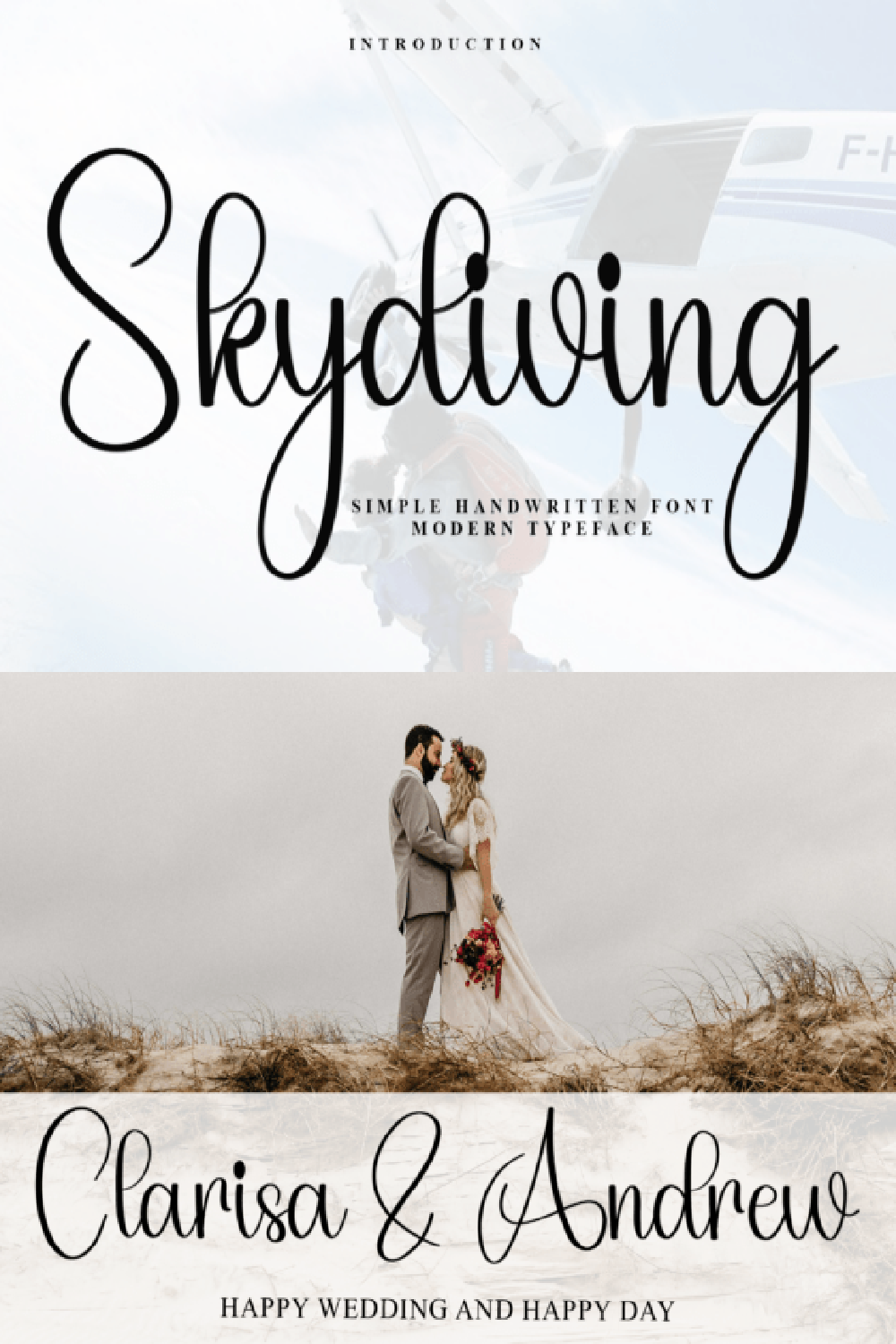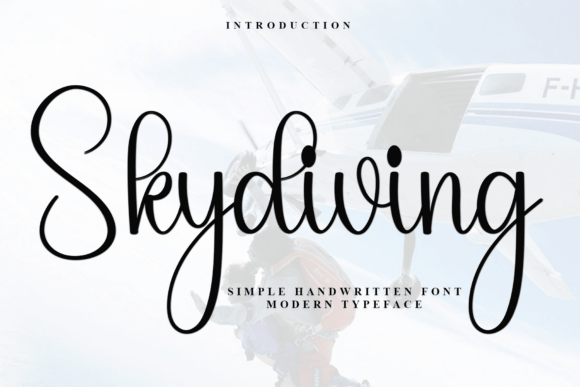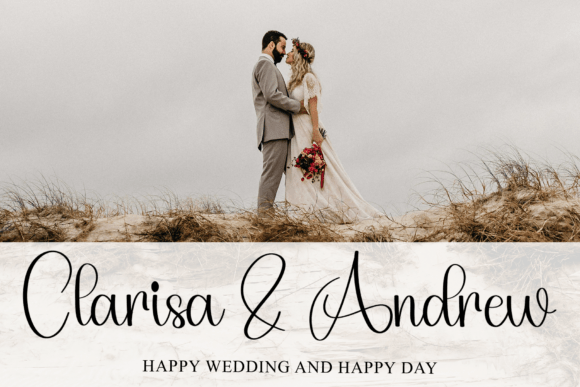
Skydiving Font: Elegant Script Font for Wedding Invitations & Branding
About the Skydiving Font
Presenting Skydiving Font, a unique and stylish typeface that will make your work stand out. Skydiving is a beautiful and eye-catching font designed with a soft, unique touch. Its distinctive strokes give it a special character, making it meaningful and versatile for future use. With various characters, it’s perfect for design projects, crafts, and other creative works.